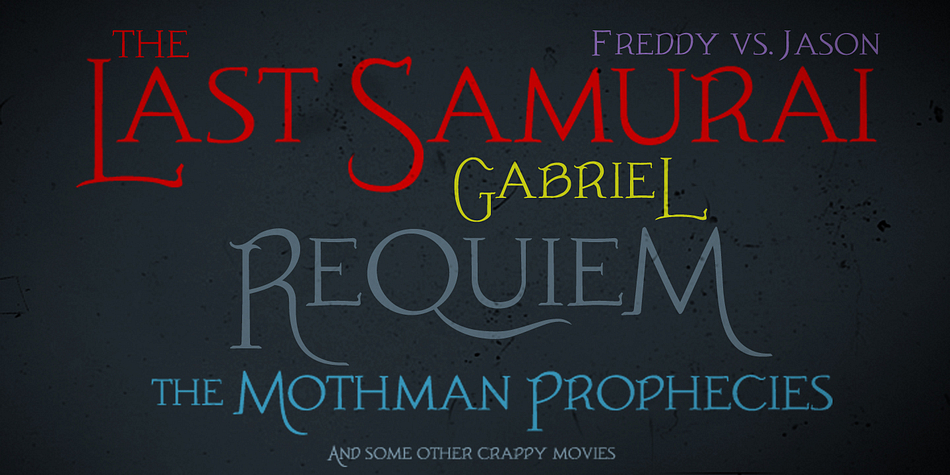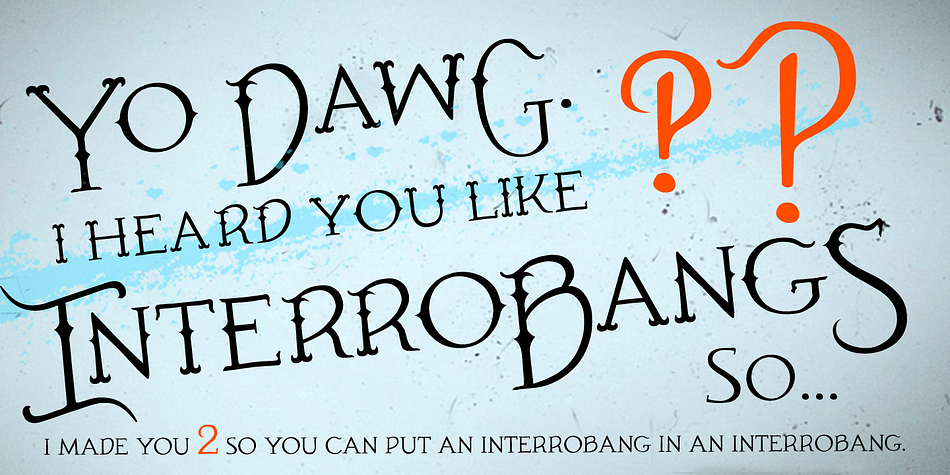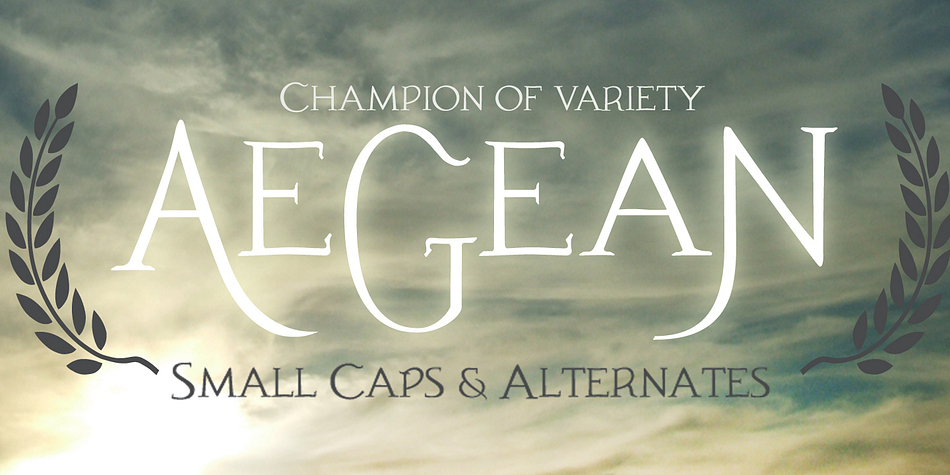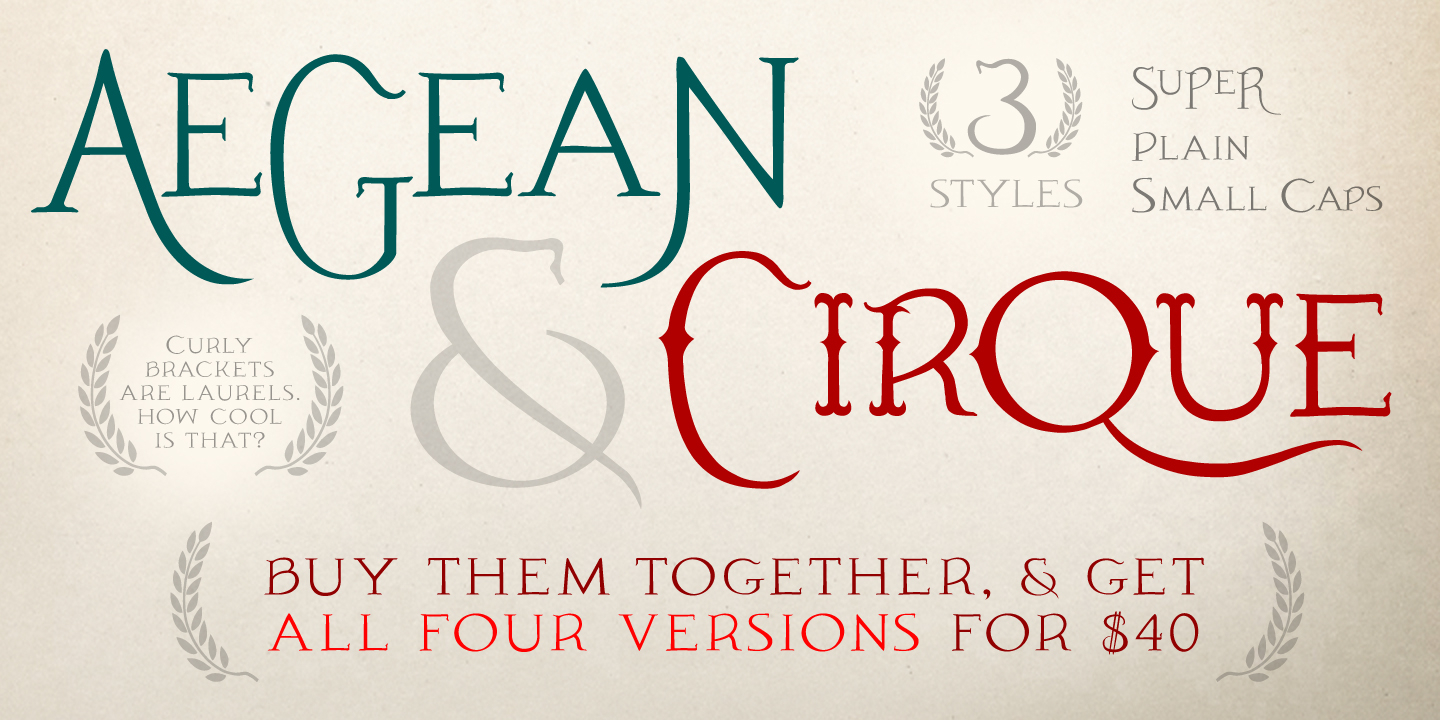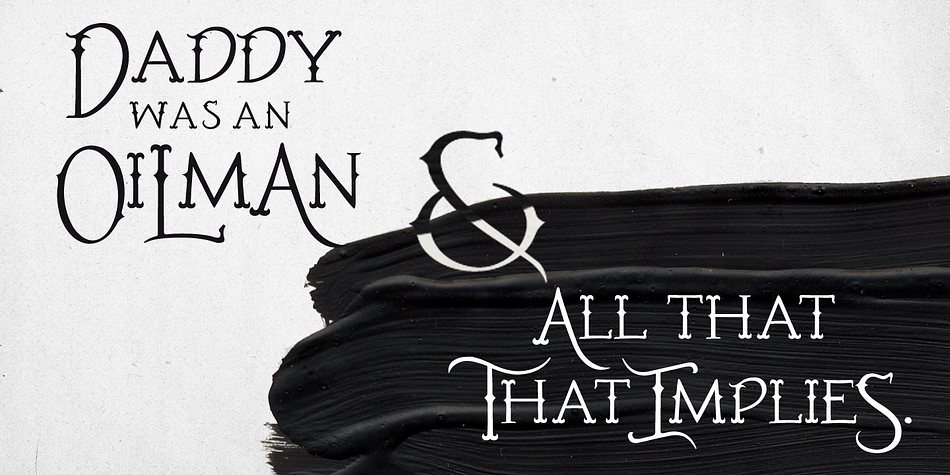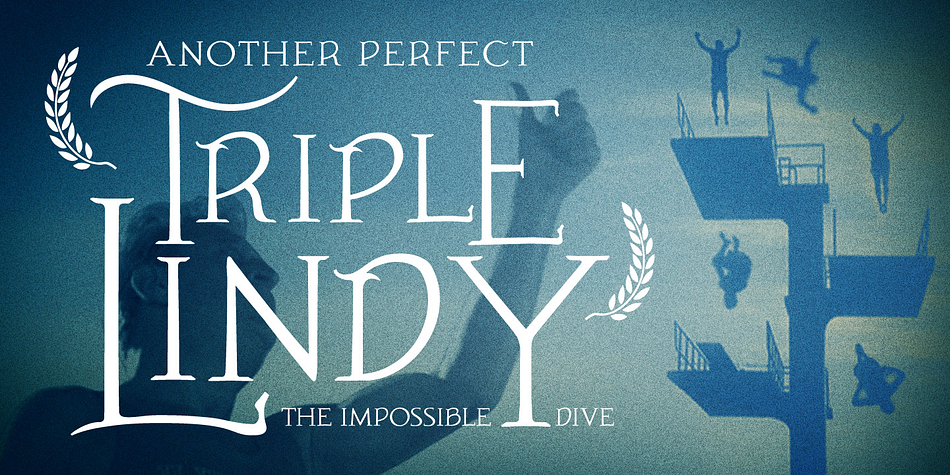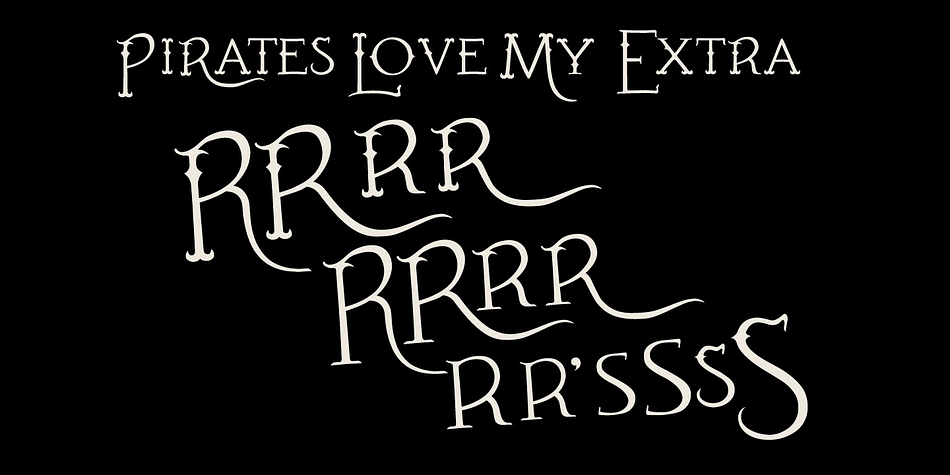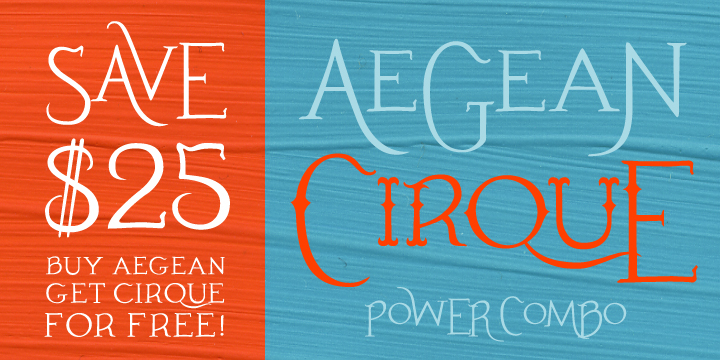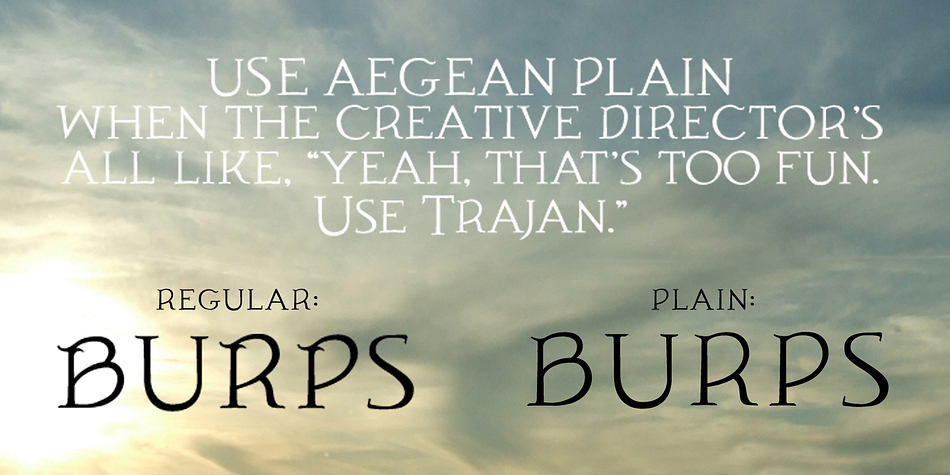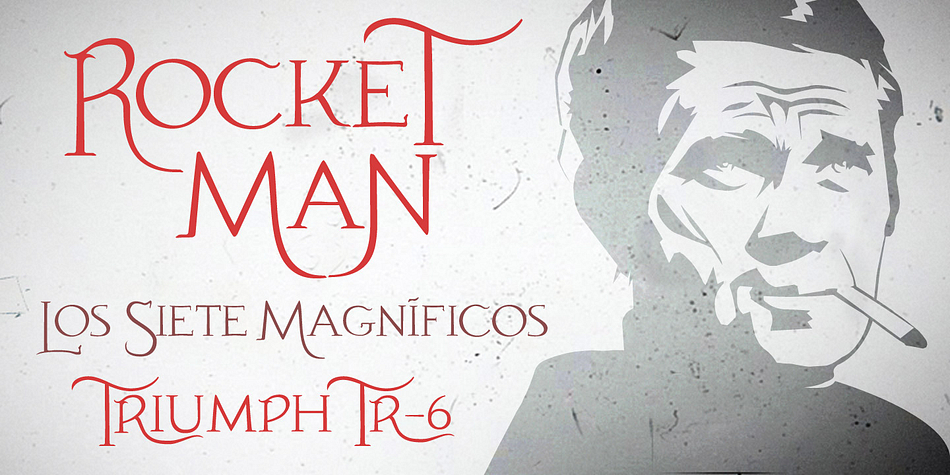
Aegean and Cirque is a display, western and display serif font family. This typeface has four styles and was published by Frost Foundry.
Aegean is a Hellenic/Roman/Horror/Classical/Egyptian/Old Timey/Official/Fantasy/Story Book/Princess/Whatever font. It’s got some big, swoopy drop caps, and two tamer small-cap versions for your subhead.